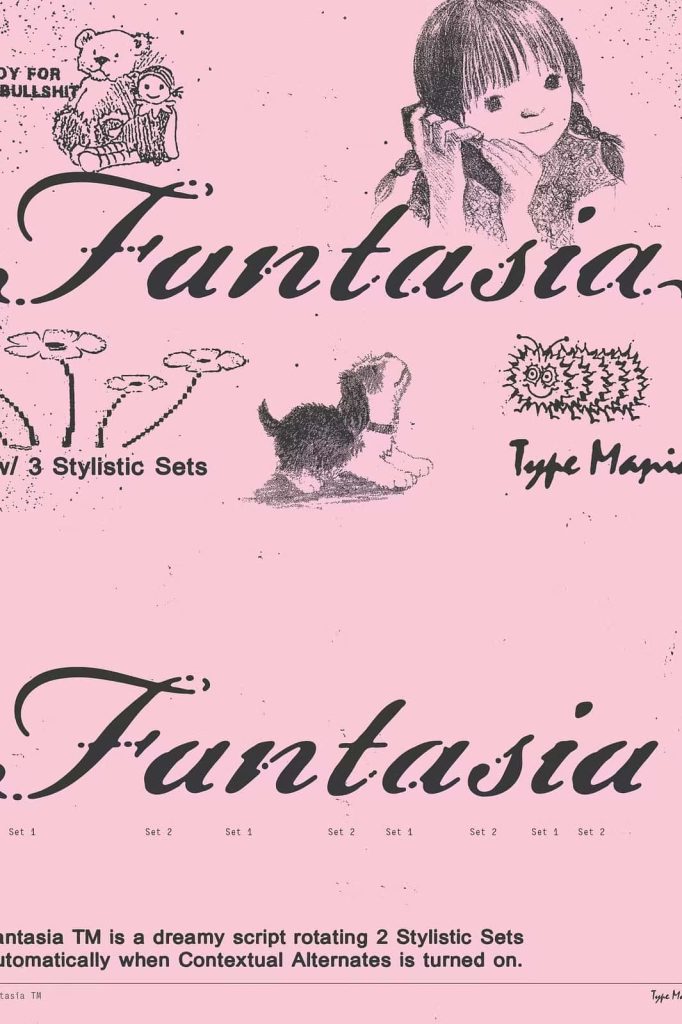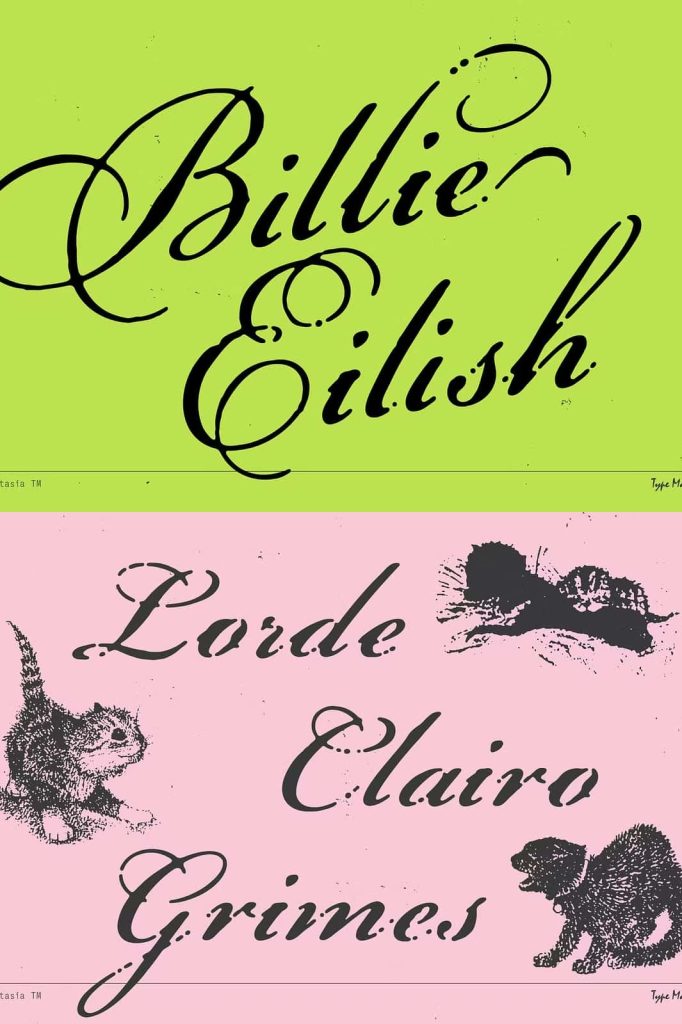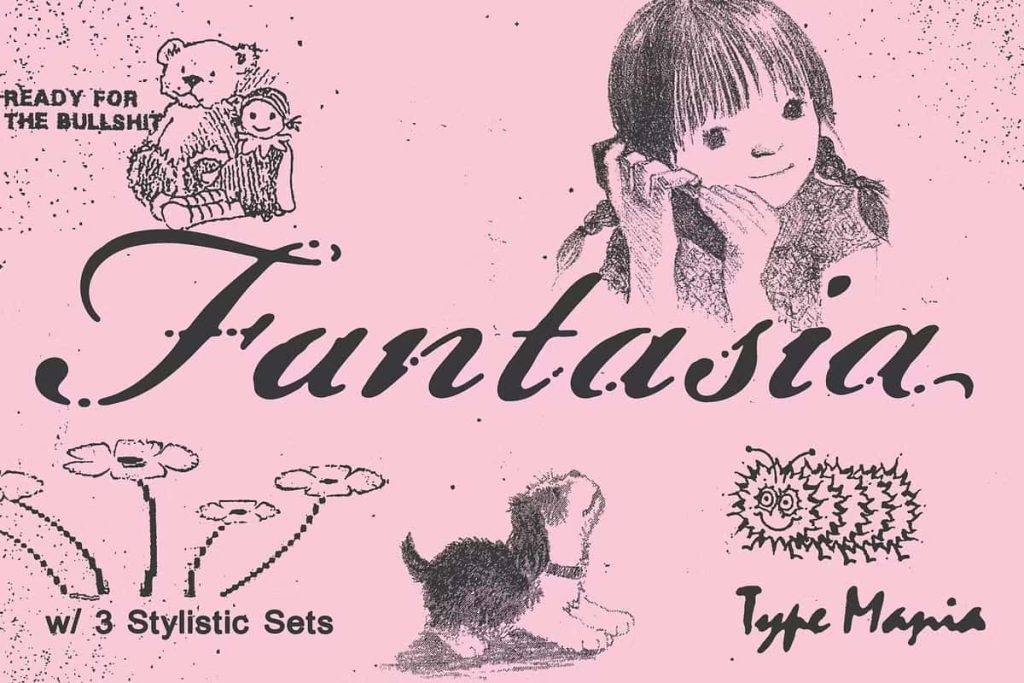
Fantasia TM – Dreamy Script
Fantasia TM Script Font: Where Raw Expression Meets Elegant Design
Fantasia TM is a script font that confidently balances two contrasting worlds: rough authenticity and refined elegance. Designed for creatives who want typography with soul, Fantasia TM delivers expressive letterforms that feel alive, human, and unapologetically distinctive. Instead of chasing perfection, this typeface embraces imperfection as a design strength, making it a powerful choice for projects that demand personality, emotion, and visual impact.
A Script Font Built on Character, Not Perfection
Fantasia TM stands apart from conventional script fonts by rejecting overly polished aesthetics. Its flowing curves carry a subtle worn texture, creating a sense of movement and organic rhythm across every word. This textured finish gives the font a handcrafted quality, as if each letter was drawn by hand rather than generated by a machine. The result is typography that feels personal, expressive, and full of character.
Rather than appearing rigid or predictable, Fantasia TM feels spontaneous and natural. Each stroke flows with confidence, allowing designers to communicate emotion without relying on excessive decorative elements. This makes the font especially effective in visual storytelling, where authenticity matters more than flawlessness.
Rotating Stylistic Sets for an Organic Look
One of the defining features of Fantasia TM is its rotating stylistic sets. These alternates ensure that repeated letters never look identical, enhancing the organic appearance of the text. This subtle variation prevents designs from feeling static or repetitive, even in longer passages or large display settings.
The rotating stylistic sets allow Fantasia TM to mimic natural handwriting, adding depth and visual interest without overwhelming the design. This functionality is particularly useful for branding, packaging, and headline typography where originality and uniqueness are critical to standing out.
Designed to Feel Alive and Expressive
Fantasia TM does not aim to be neutral or invisible. Instead, it actively participates in the design by contributing emotion and tone. Its expressive curves and textured strokes communicate confidence, creativity, and a touch of rebellion. This makes it an excellent choice for brands and creatives who want to project individuality and boldness.
The font’s expressive nature helps designers create visual narratives that feel honest and raw. Whether used sparingly or as the centerpiece of a design, Fantasia TM brings energy and movement to the composition.
Versatile Applications Across Creative Projects
Fantasia TM works exceptionally well across a wide range of design applications. Its balance of edge and elegance allows it to adapt seamlessly to different creative contexts. Designers frequently use it for:
• Branding and logo design
• Posters and editorial headlines
• Packaging and product labels
• Album covers and merchandise
• Social media graphics and digital campaigns
Because it does not rely on excessive polish, Fantasia TM shines in projects that require authenticity and emotional connection. It adds depth to minimalist layouts and complements bold visual concepts without competing for attention.
Perfect for Designs That Need Personality
Fantasia TM is ideal for designs that need character without looking overworked or overly refined. It communicates confidence through simplicity and texture, allowing designers to focus on storytelling rather than decoration. This makes it particularly suitable for creative industries, independent brands, and artistic projects that value originality.
When used thoughtfully, Fantasia TM elevates typography into a central design element. It encourages designers to embrace imperfection, explore expressive layouts, and create visuals that feel genuine and memorable.
A Strong Choice for Modern Creative Typography
In a landscape filled with clean and minimal typefaces, Fantasia TM offers a refreshing alternative. It delivers a script font that feels modern yet timeless, expressive yet controlled. By combining worn textures, fluid curves, and rotating stylistic sets, Fantasia TM empowers designers to create work that stands out with confidence and authenticity.
For anyone seeking a script font that speaks with emotion, personality, and creative freedom, Fantasia TM is a compelling and versatile choice.